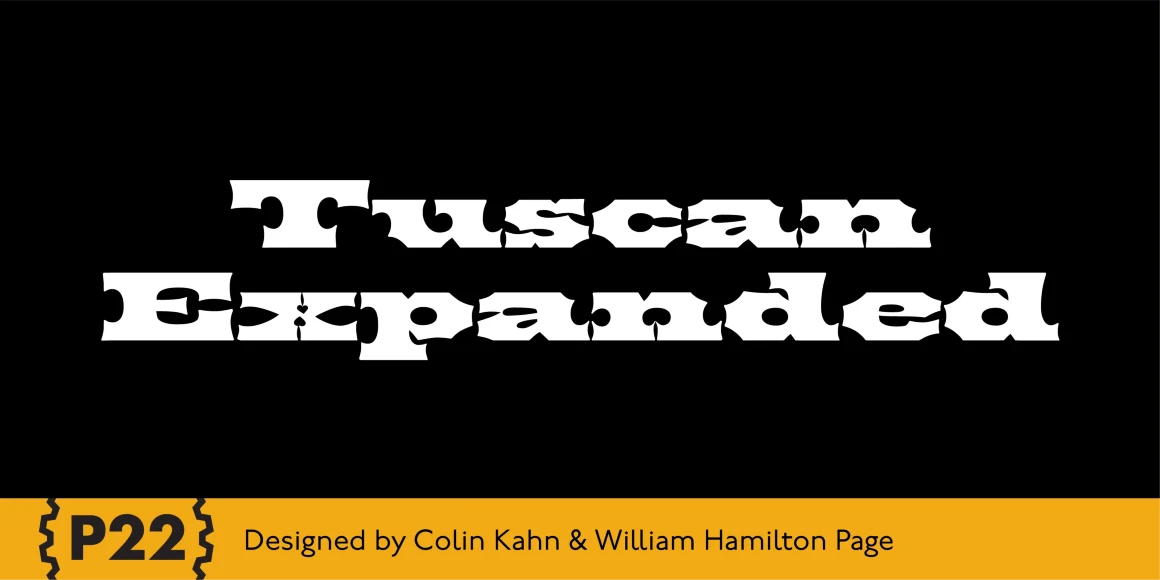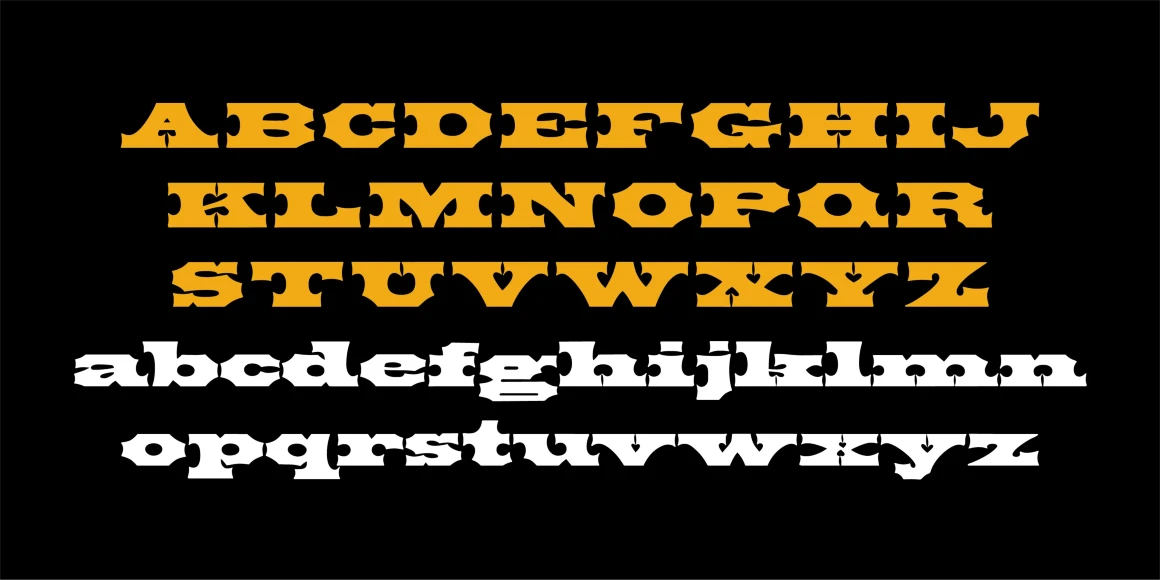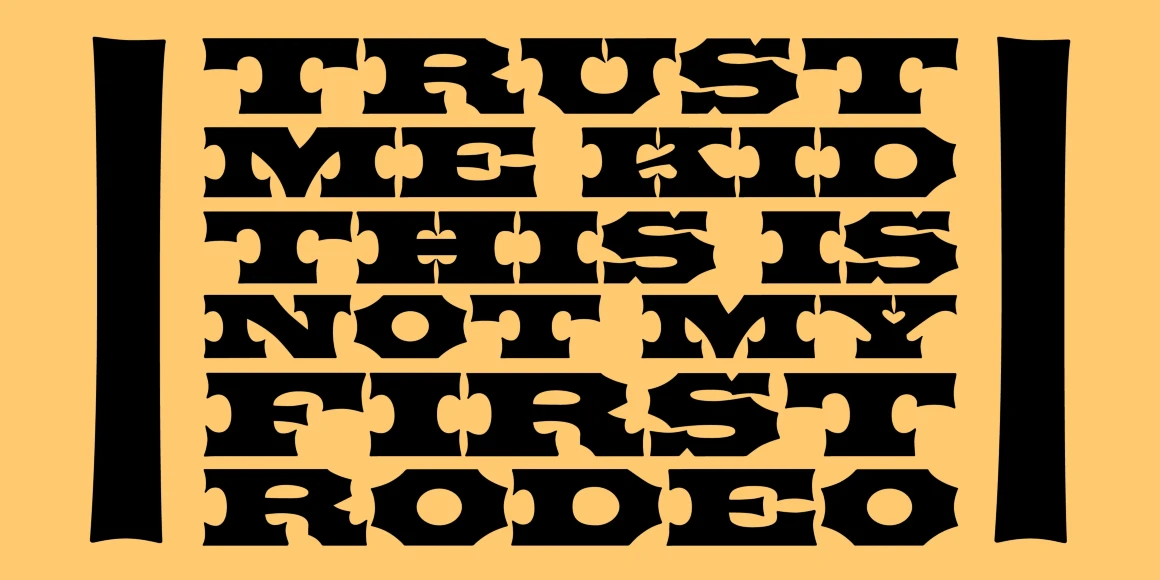
Tuscan Expanded
P22 Tuscan Expanded is a digitization of the mid-19th Century Woodtype font “Antique Tuscan Expanded - Wells & Webb 1854.” Specimens of this font are rarely, if ever, seen with a lower case. This version was digitized from a recently discovered full set including all lower case plus ff ligatures. One unique feature of this design is the heart shape formed in the V, X & Y.
Designed by Colin Kahn & William Hamilton Page